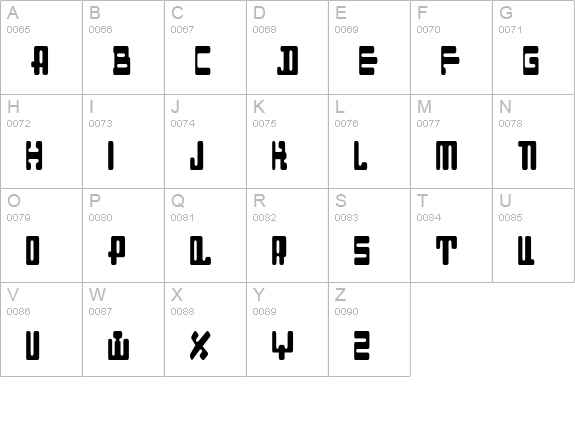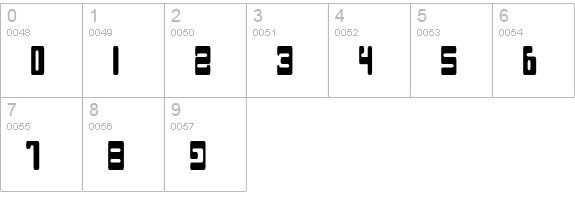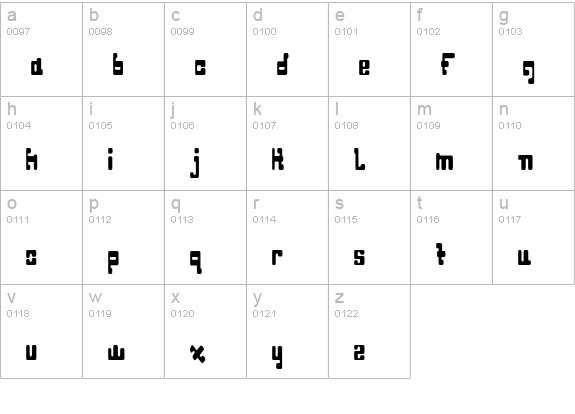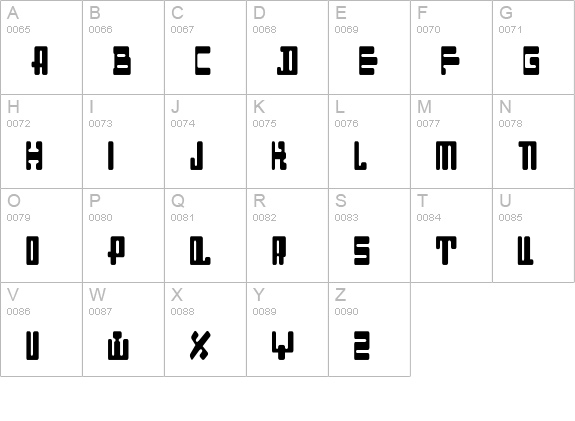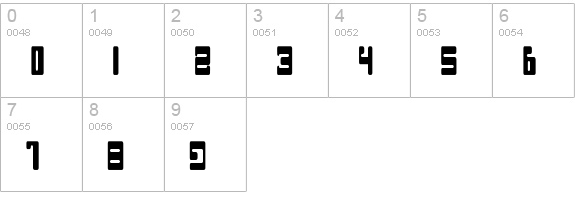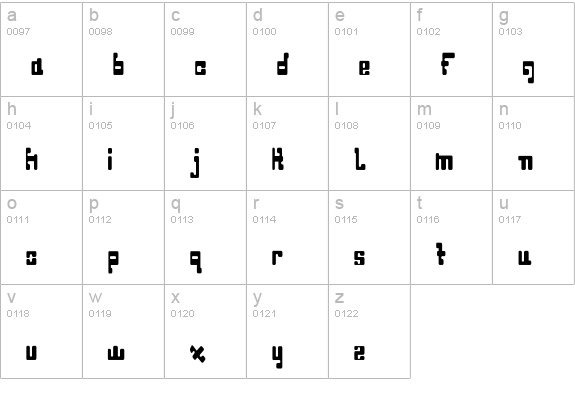
Dahgir-RoundCondensed Font Details
Dahgir-RoundCondensed is a visually appealing and modern font that captures attention with its unique and elegant appearance. With its condensed design, it offers a sleek and sophisticated feel that is perfect for various design projects. This font stands out due to its rounded edges, which give it a friendly and approachable vibe. It exudes a sense of playfulness and creativity, making it an excellent choice for any design that aims to make a statement. Whether you're working on a logo, branding, advertising, or any other creative endeavor, Dahgir-RoundCondensed will add a touch of charm and uniqueness to your project. What sets Dahgir-RoundCondensed apart is that it is freely available to download at FontsMarket.com. This means that you can easily access and use this incredible font in your designs without having to worry about any additional costs. It's an excellent opportunity to enhance your creative projects without breaking the bank. With its versatile and eye-catching design, Dahgir-RoundCondensed is suitable for both digital and print media. Its legibility and clarity make it a great choice for headlines, titles, and even body text. This font allows you to experiment with different styles and sizes, giving you the freedom to create stunning compositions that truly captivate your audience. So why wait? Download Dahgir-RoundCondensed today from FontsMarket.com and unlock the potential to bring your designs to life. With its free availability, you can explore the endless possibilities this font offers and make your creations stand out from the crowd. Don't miss out on this amazing opportunity to elevate your design projects with Dahgir-RoundCondensed.